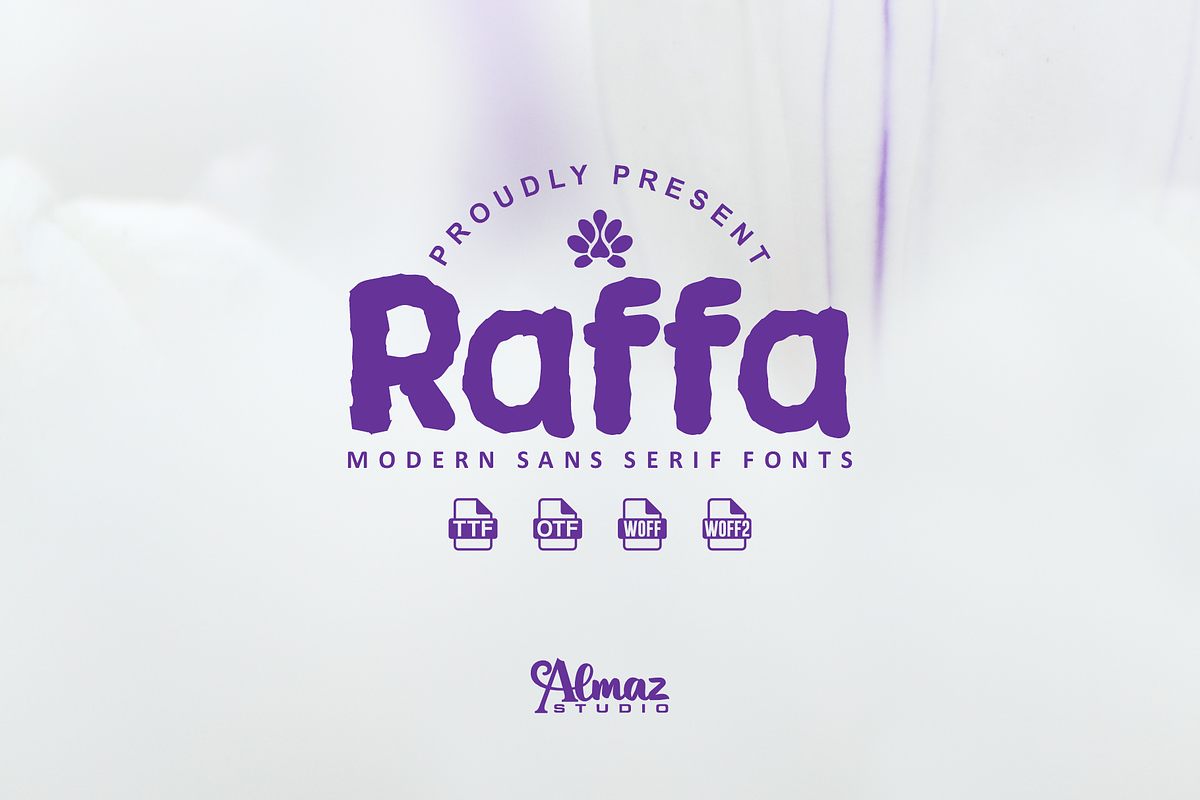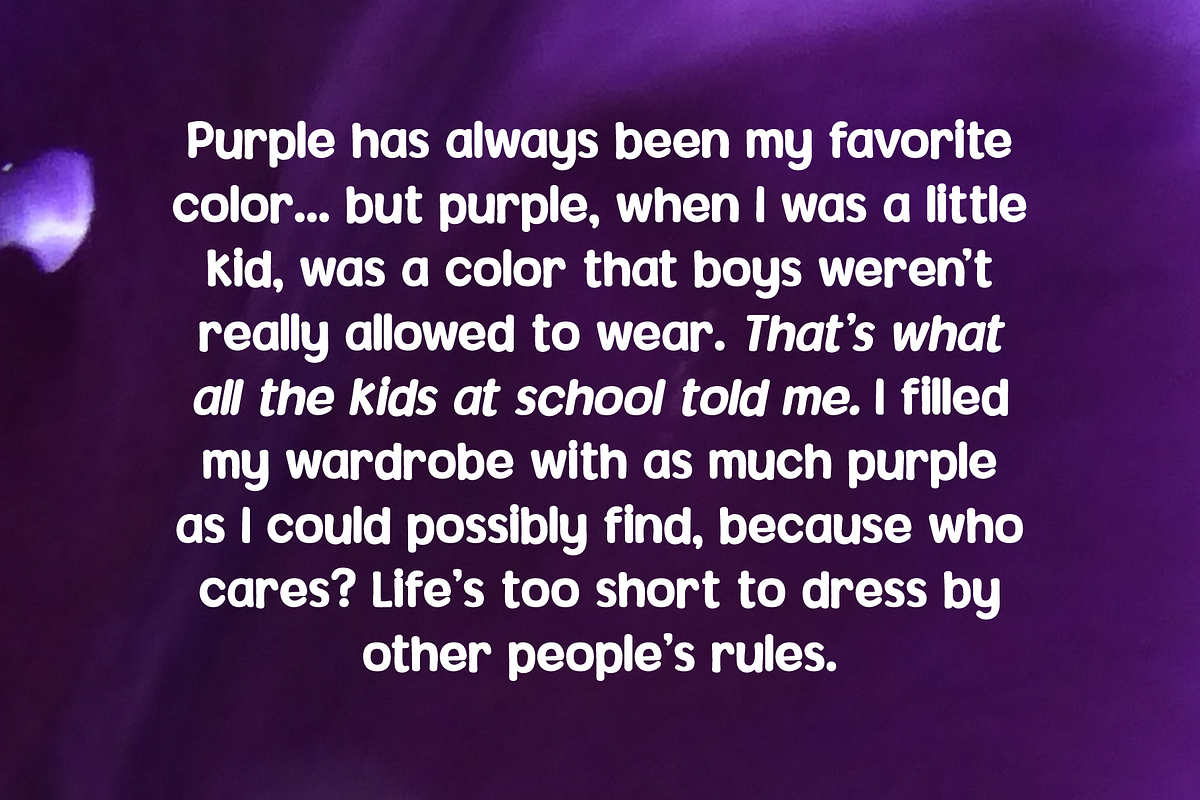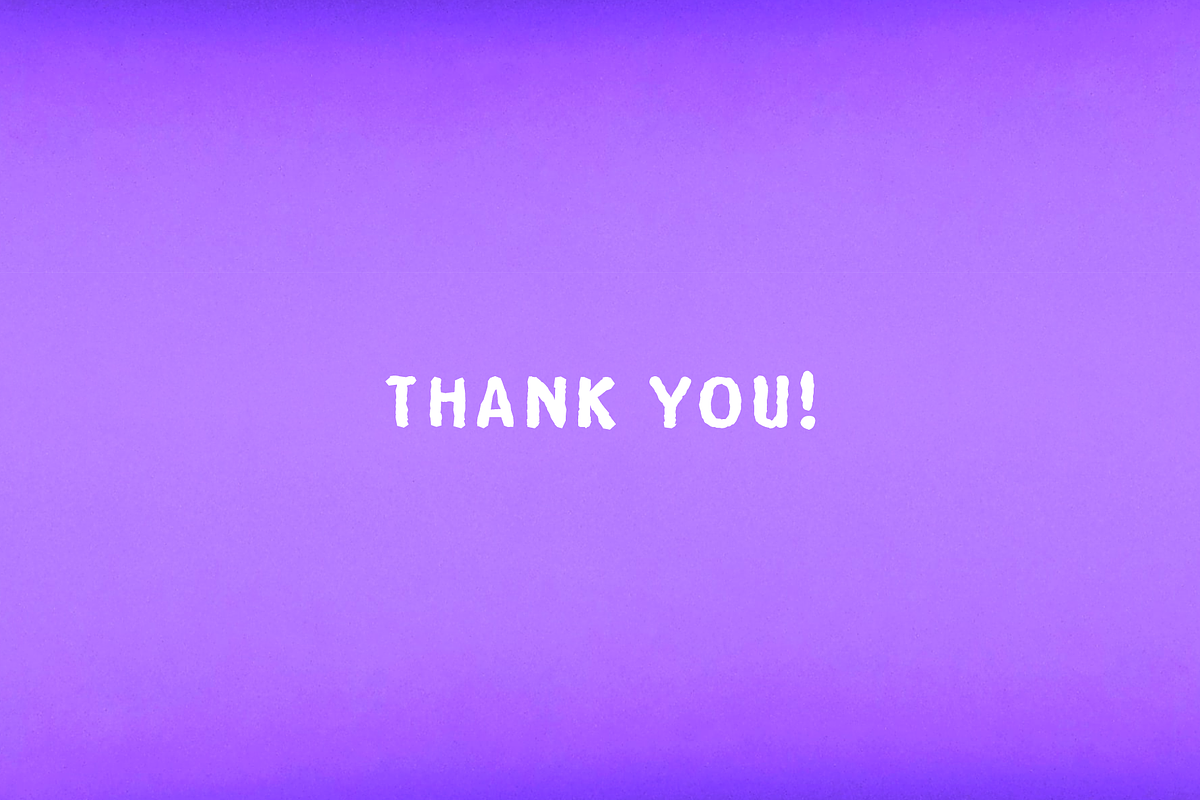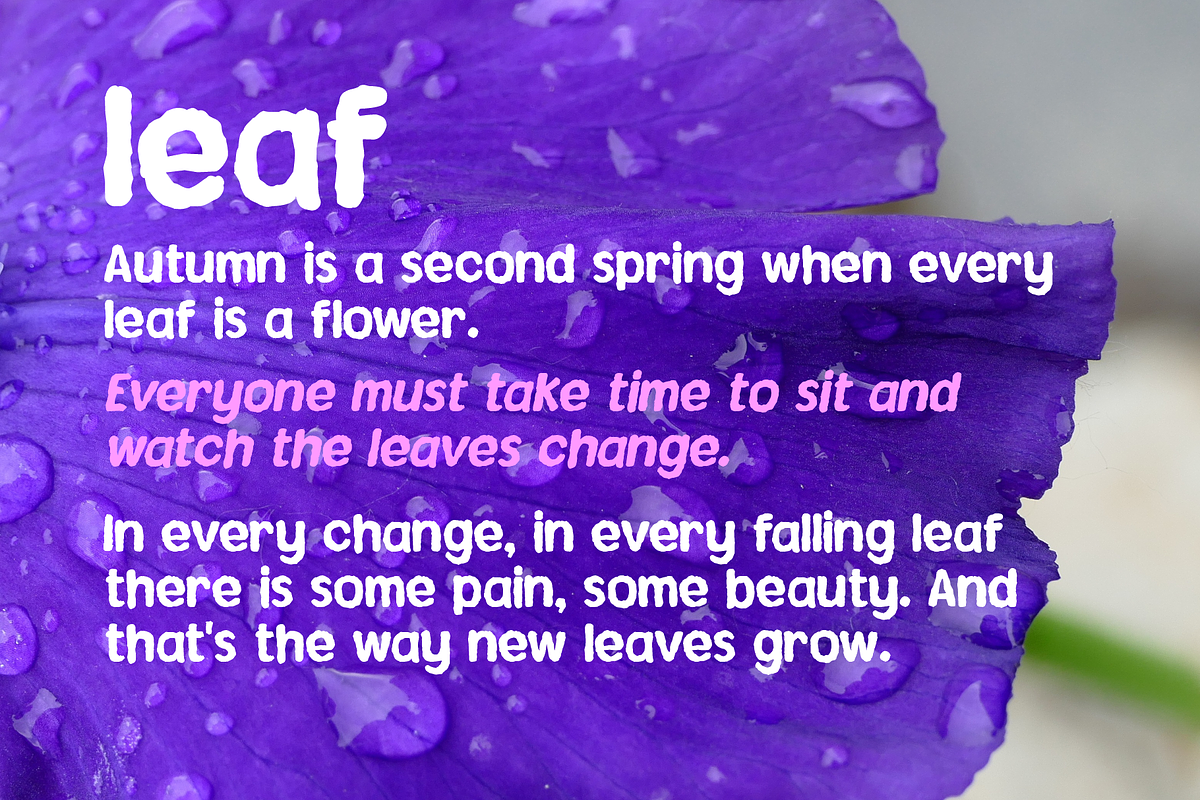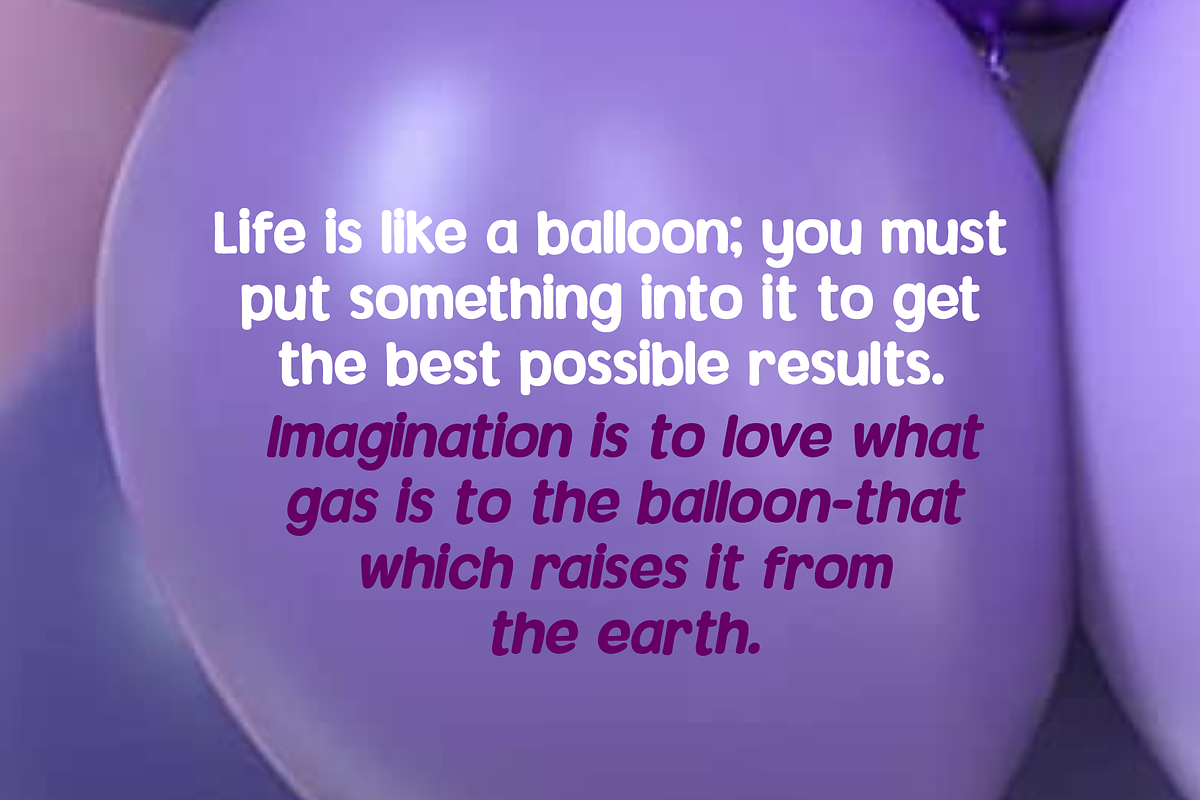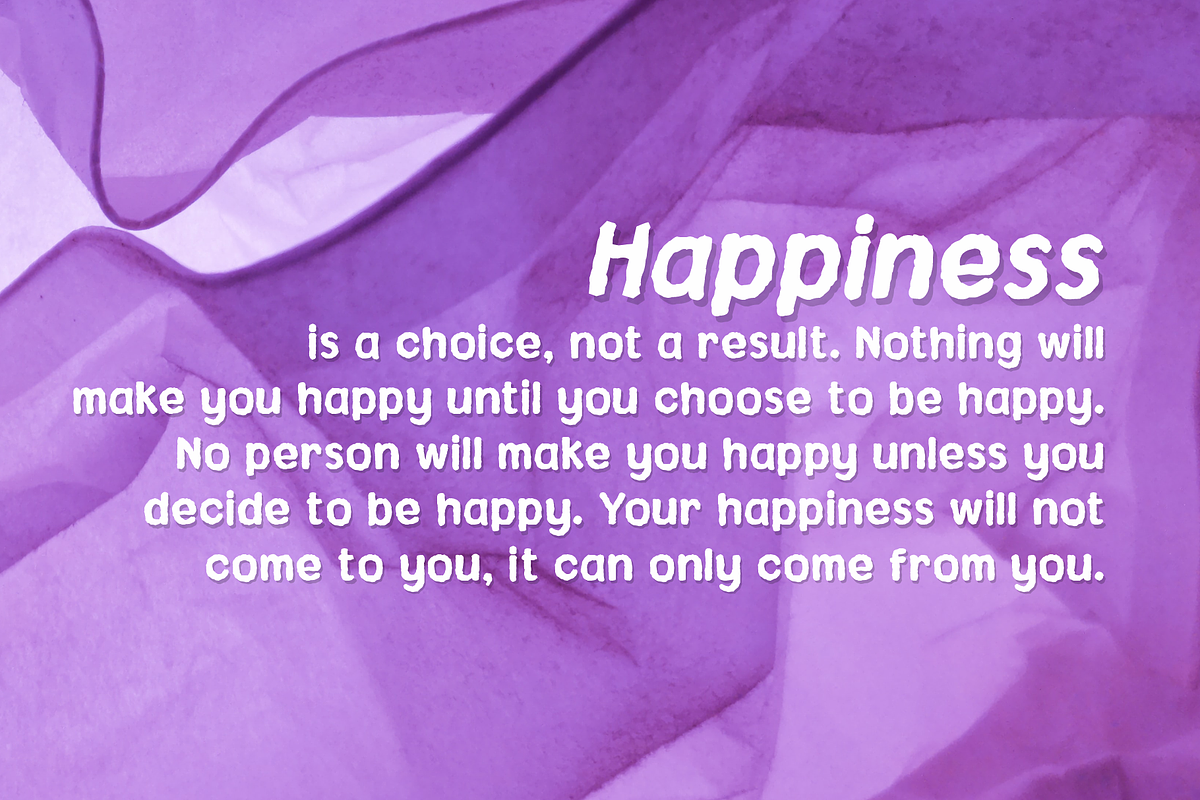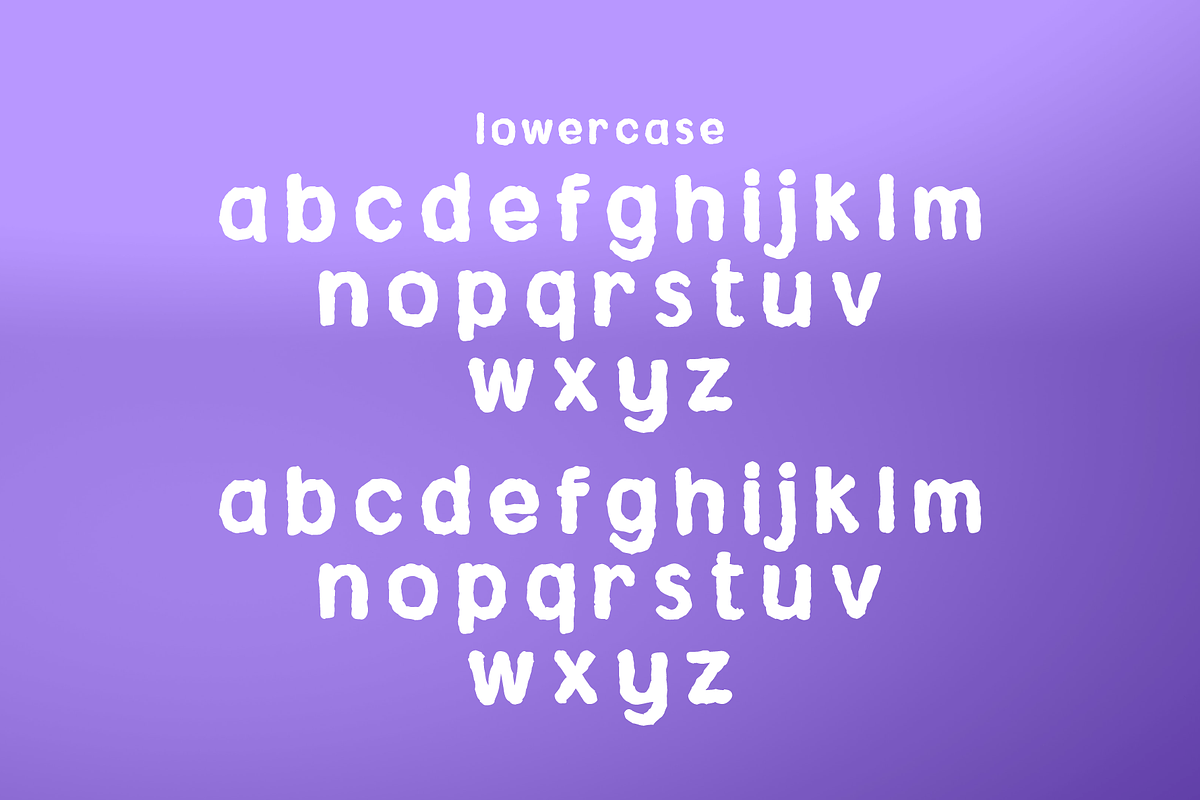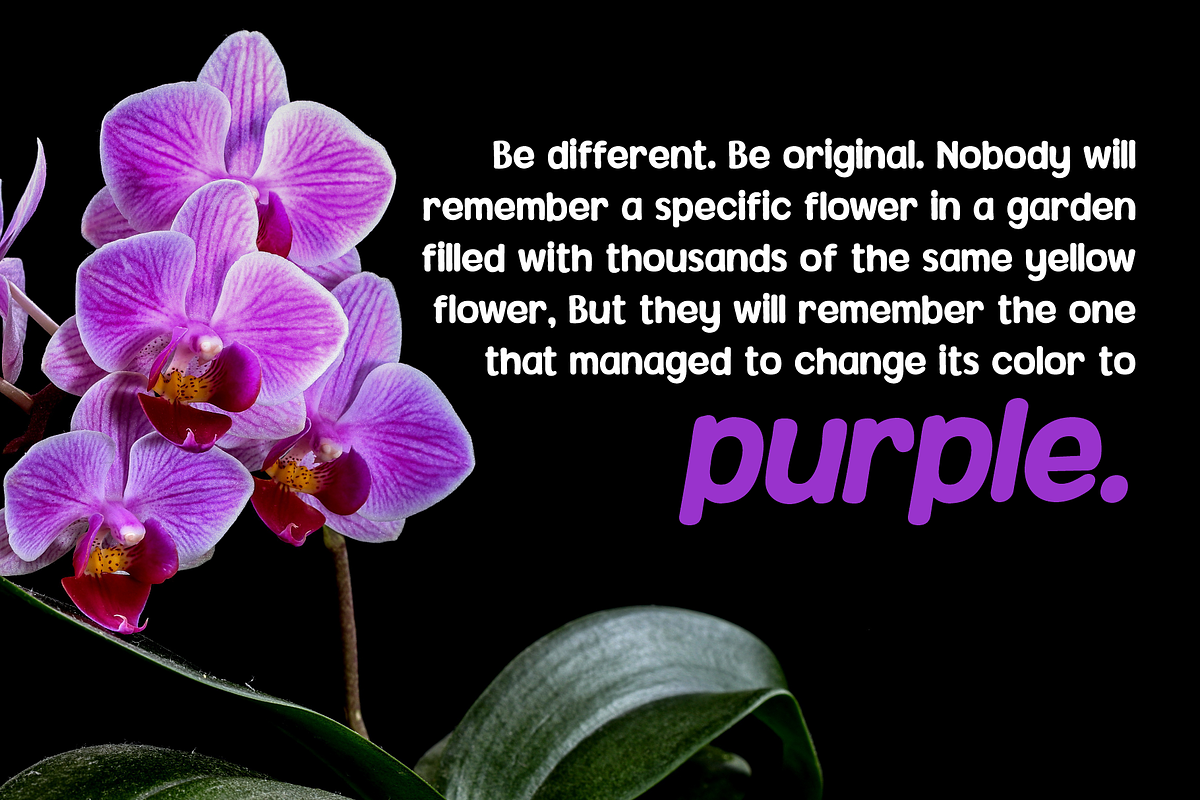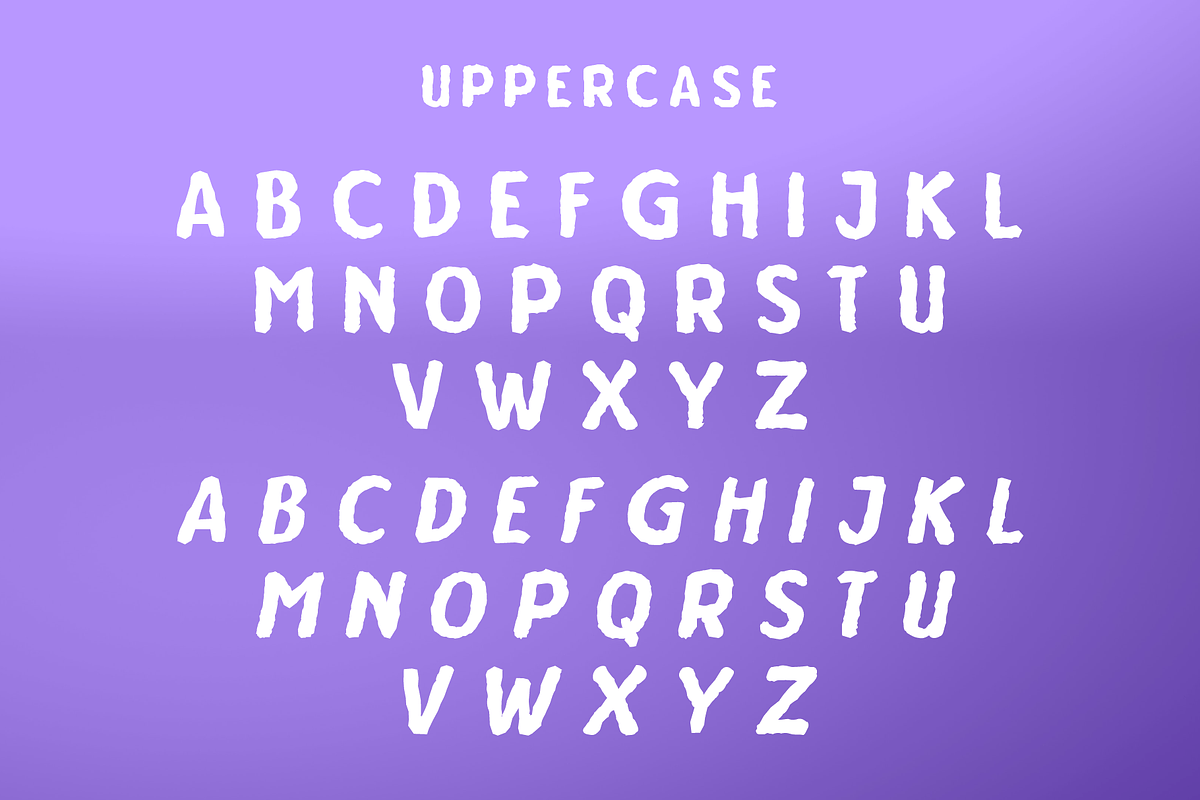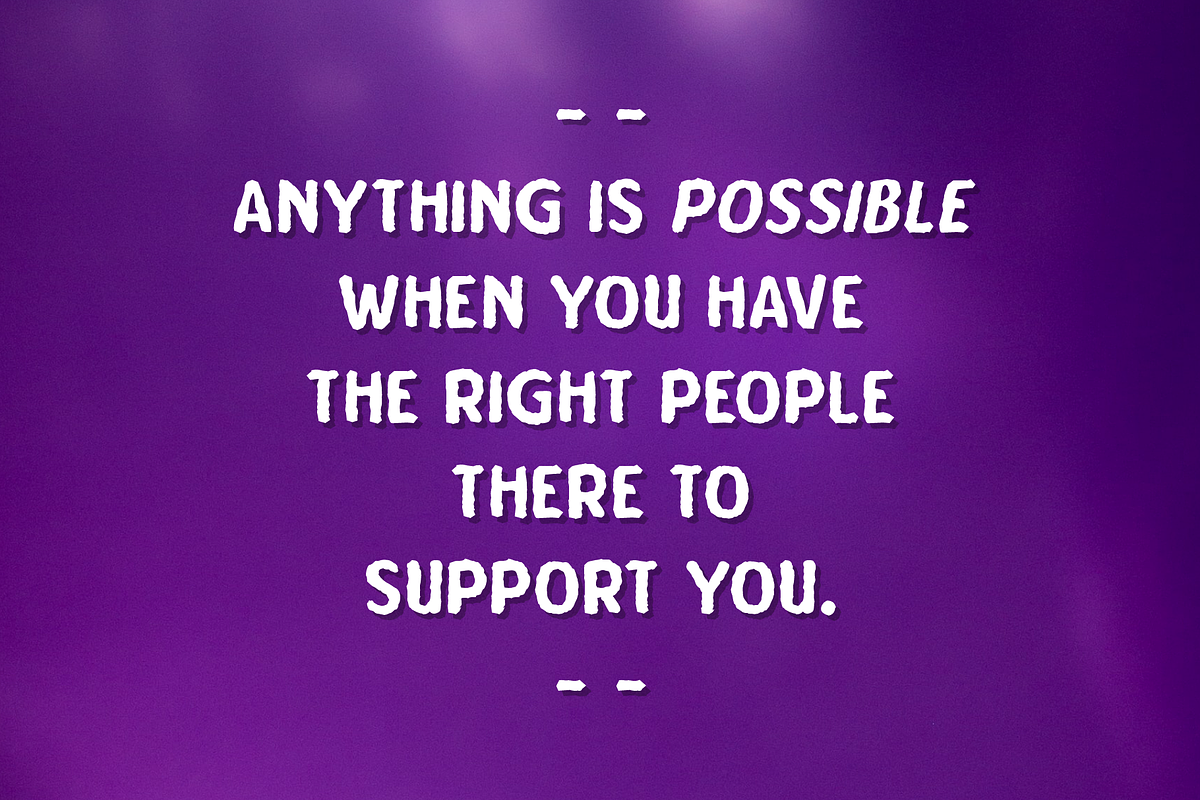
Raffa
Raffa is a font that will make your design looks bold, modern, unique and fun. Perfect for playful kids font with cartoon style. This font is specially crafted for children, Kids, Boys, Kindergarten, Birthday, and Comic purposes. Big Boss font has a unique glyph and fun style. Raffa made for text display purposes inspired by handwritten font with wavy style. We crafted this font for your design project. Support Multilanguage and you can easily create a simple, clean, cool logo, branding, and promotion with this font. Raffa brings a modern and strong impression to your design make this font suitable as the main text / header text on a website or layout design. Raffa is suitable for blog titles, headers, promotional text, call to actions and more.
- Complete characters uppercase, lowercase, numeral, and punctuations